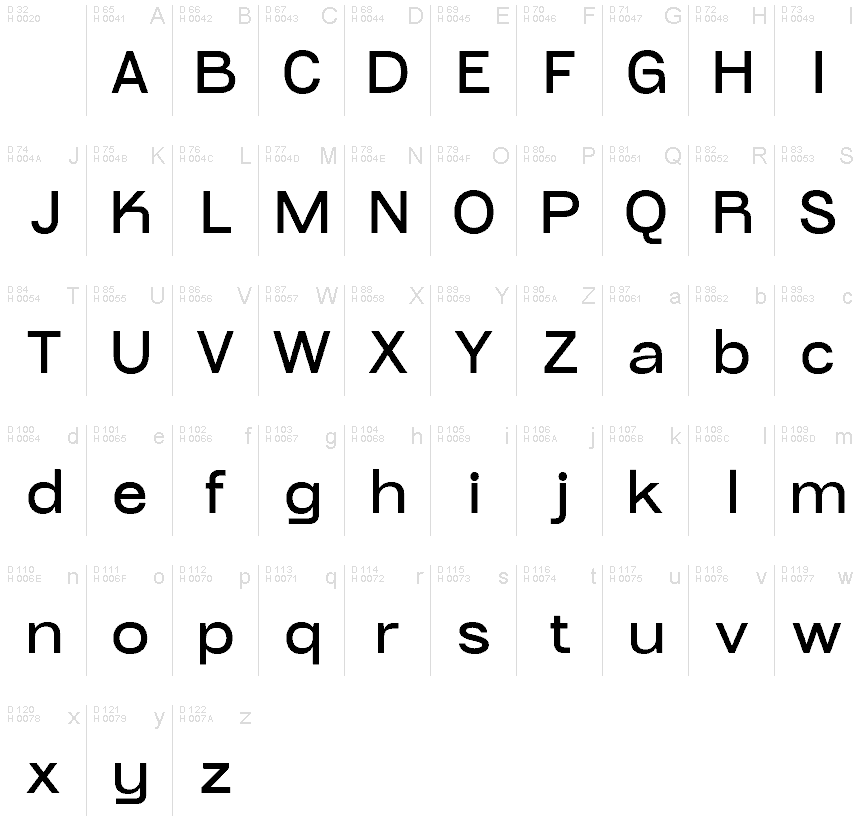
CS Horace Regular Demo
CS Horace font by Craft Supply Co. is a sleek modern sans-serif with a simple geometric minimalistic style. The letters of this display font have so many curves which create a soft smooth structure to each letter. Enjoy this beautiful entry and use it in various print projects and digital platforms.